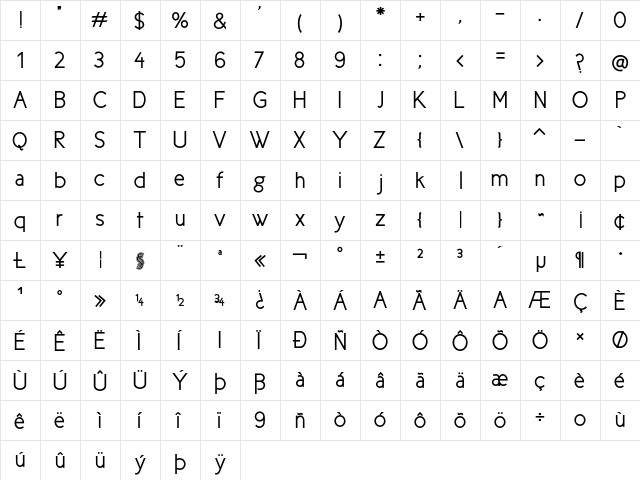
New Cicle Gordita
| Foundry | La Tipomatika |
| Designer | La Tipomatika (Digital Type Foundry) |
Design Context for New Cicle Typeface
New Cicle offers clean, dependable letterforms without strong stylistic allegiance, making it a practical choice for designers who need flexibility.